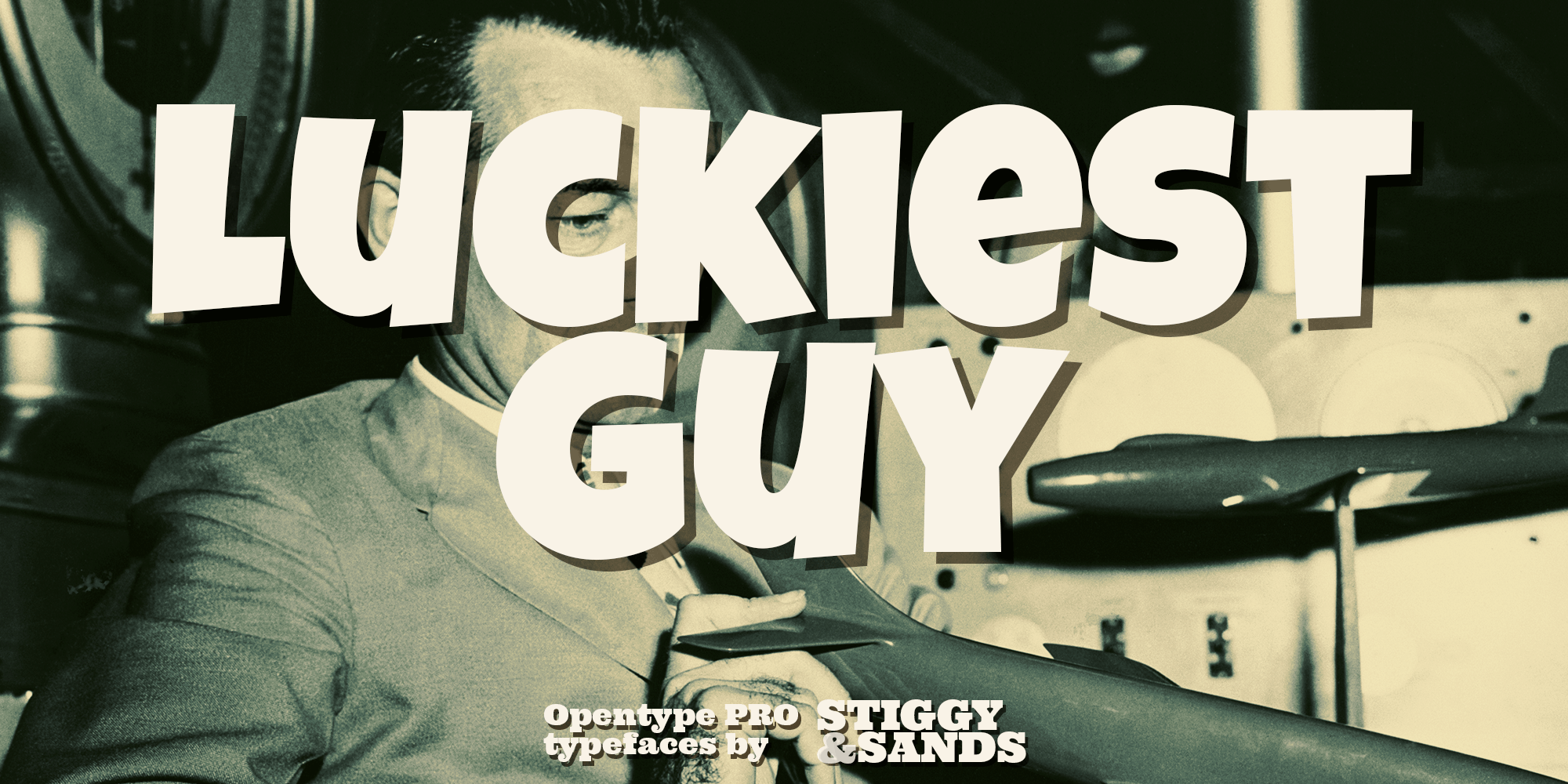
Luckiest Guy Pro Font Free Download is a bold, playful, and energetic typeface that instantly grabs attention. Inspired by vintage comic styles, this font is perfect for fun branding, posters, children’s books, and any project that needs a lively and cheerful vibe.
With its thick strokes and rounded edges, Luckiest Guy Pro Font Free Download brings a sense of warmth and friendliness to your designs. It works brilliantly in headlines and display text, making your message stand out in a crowd.
Add a splash of joy and boldness to your projects with Luckiest Guy Pro Font Free Download. If you want a font that’s as fun and lucky as its name, Luckiest Guy Pro is your perfect pick.